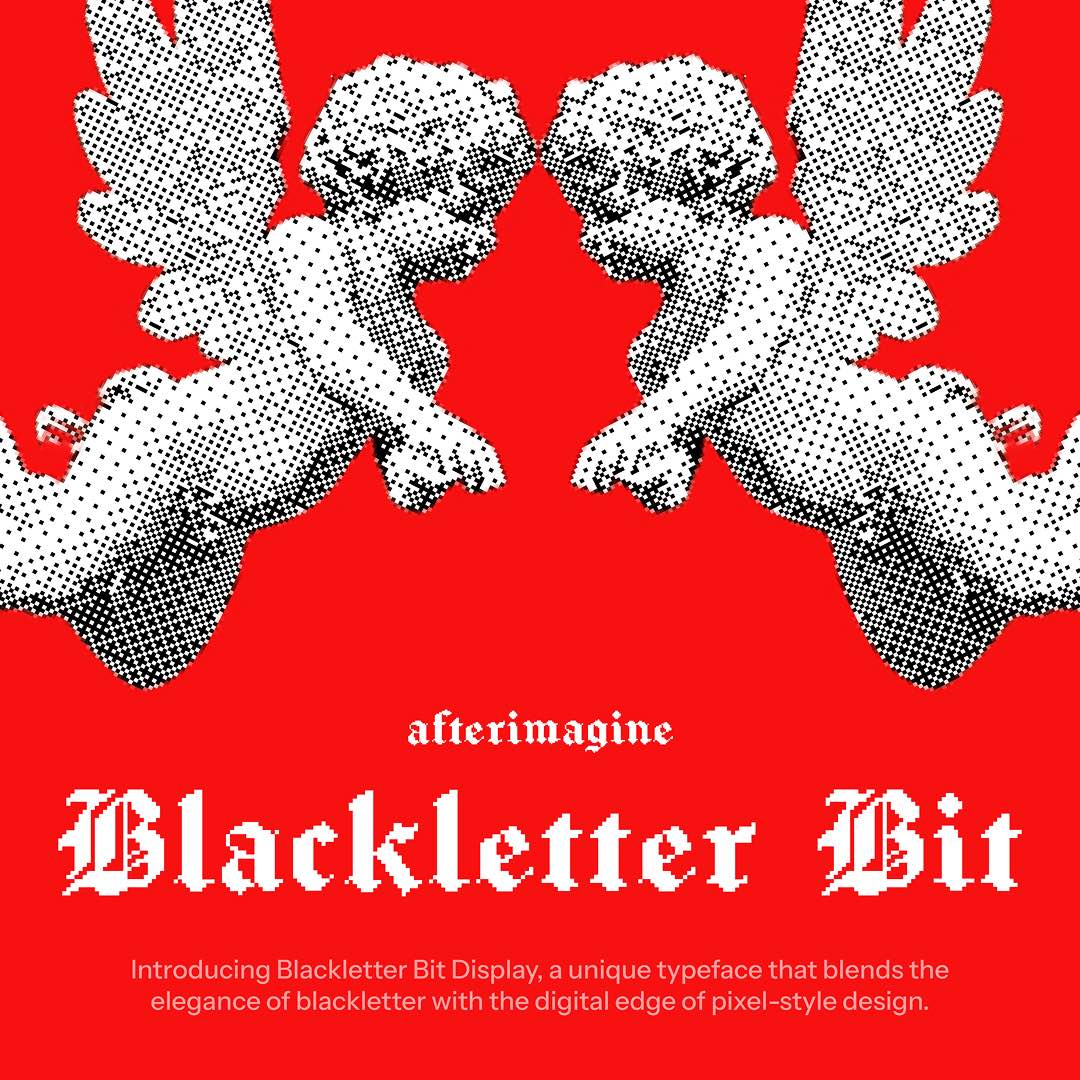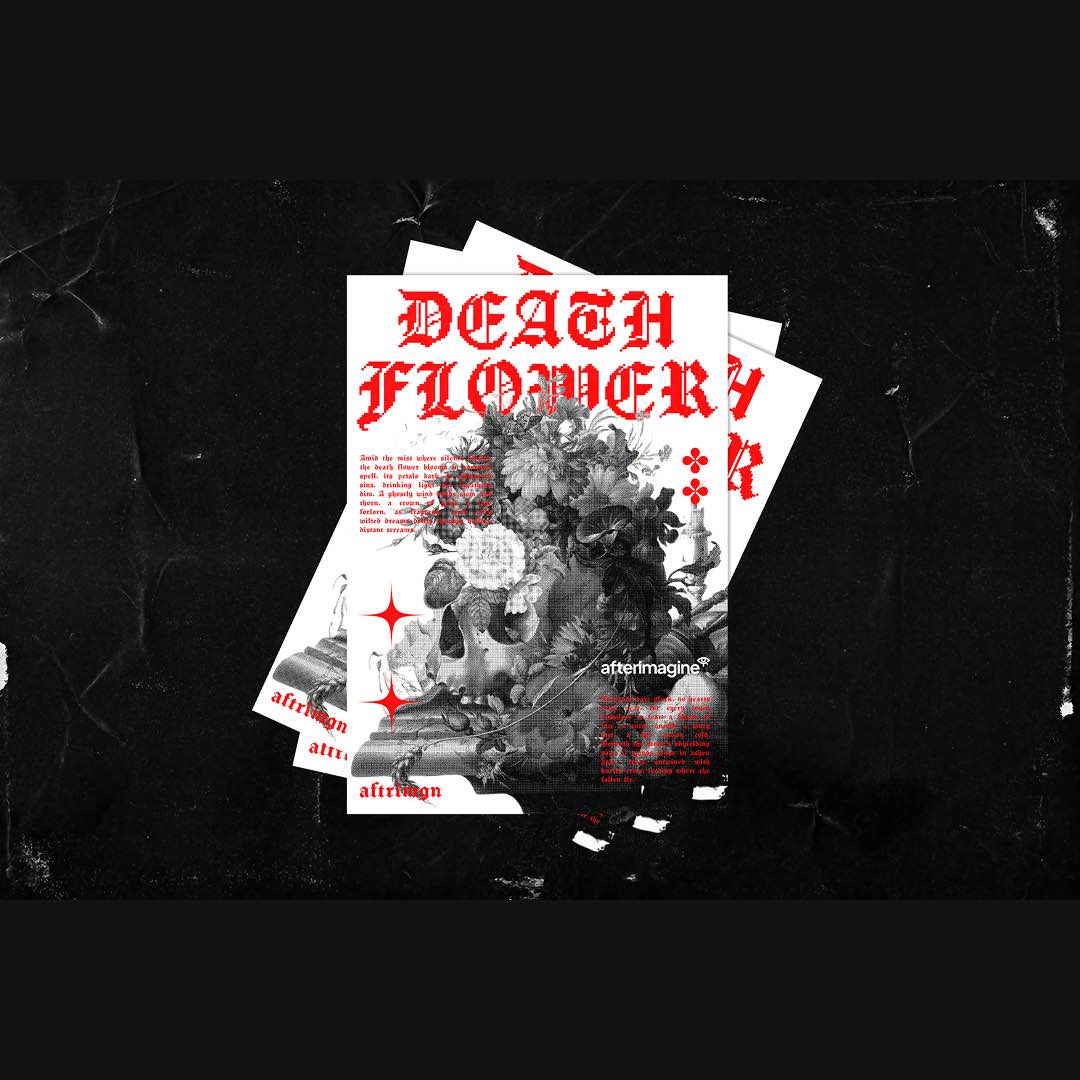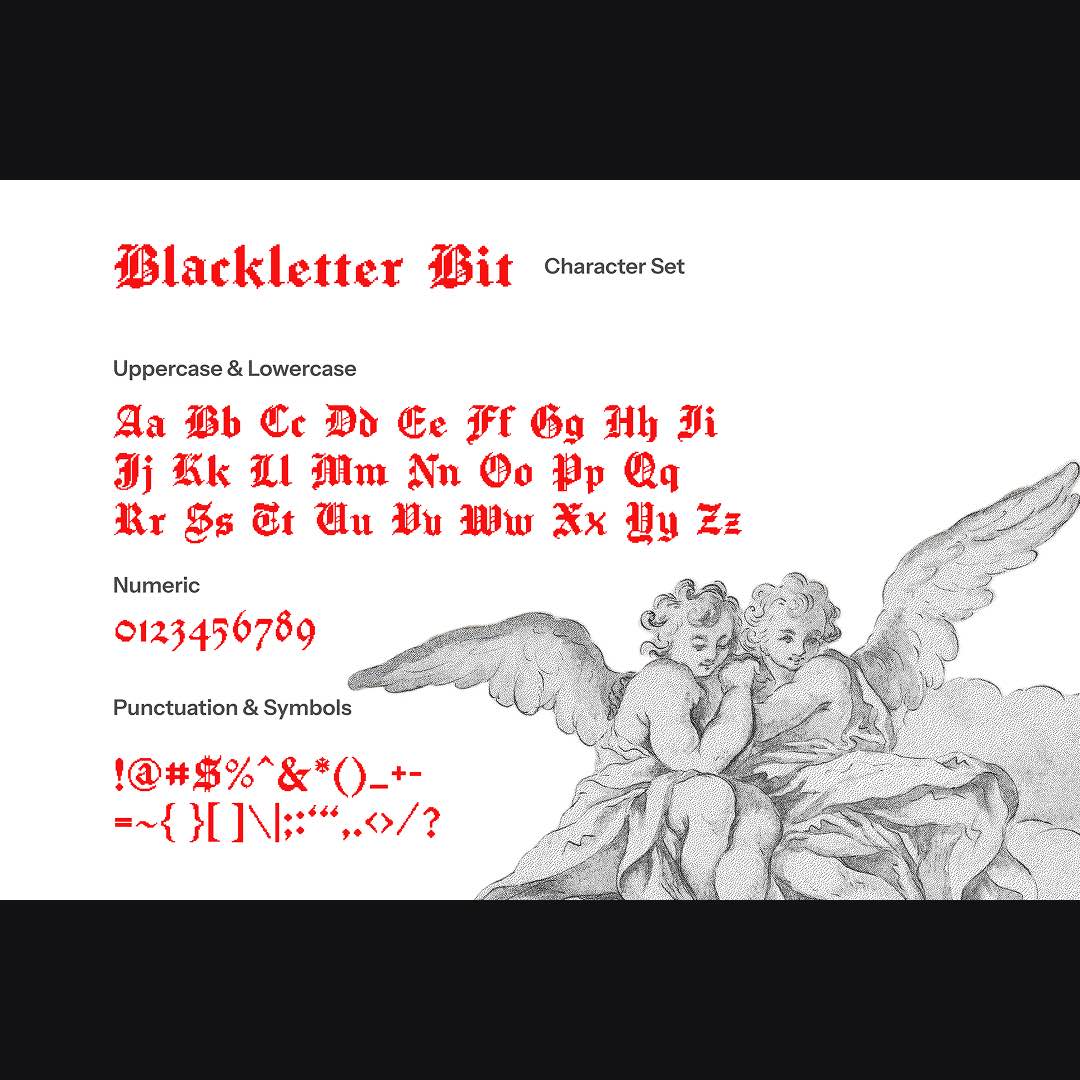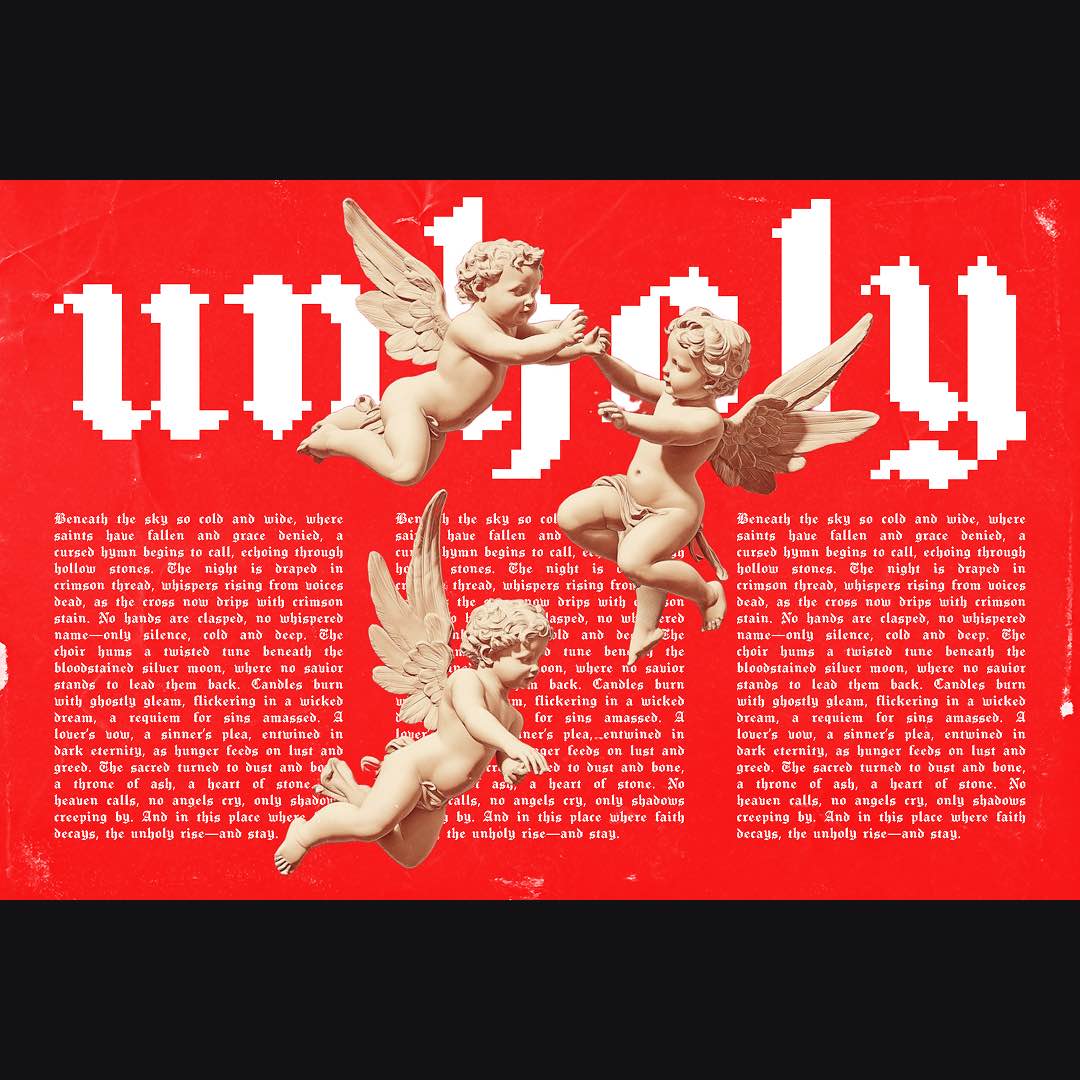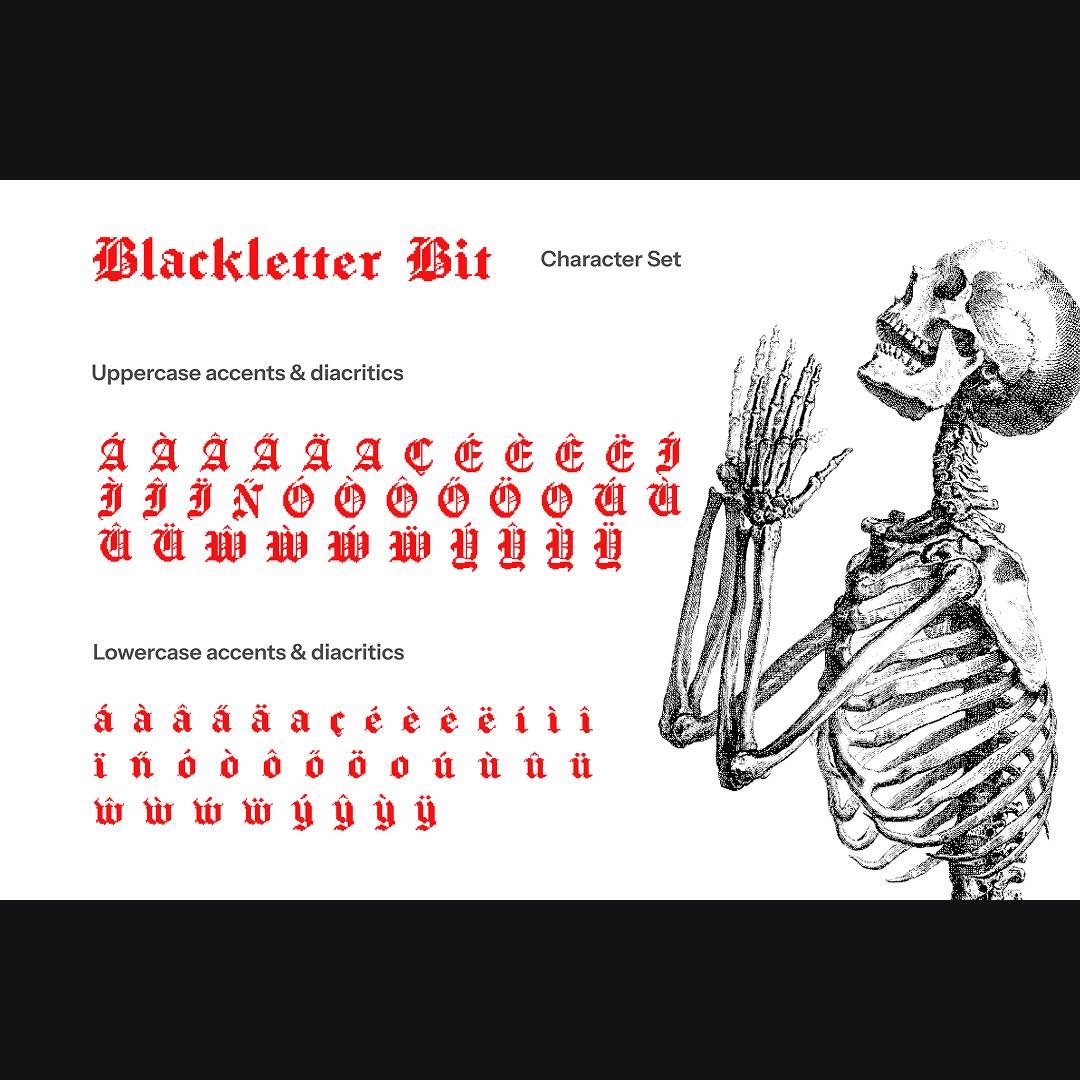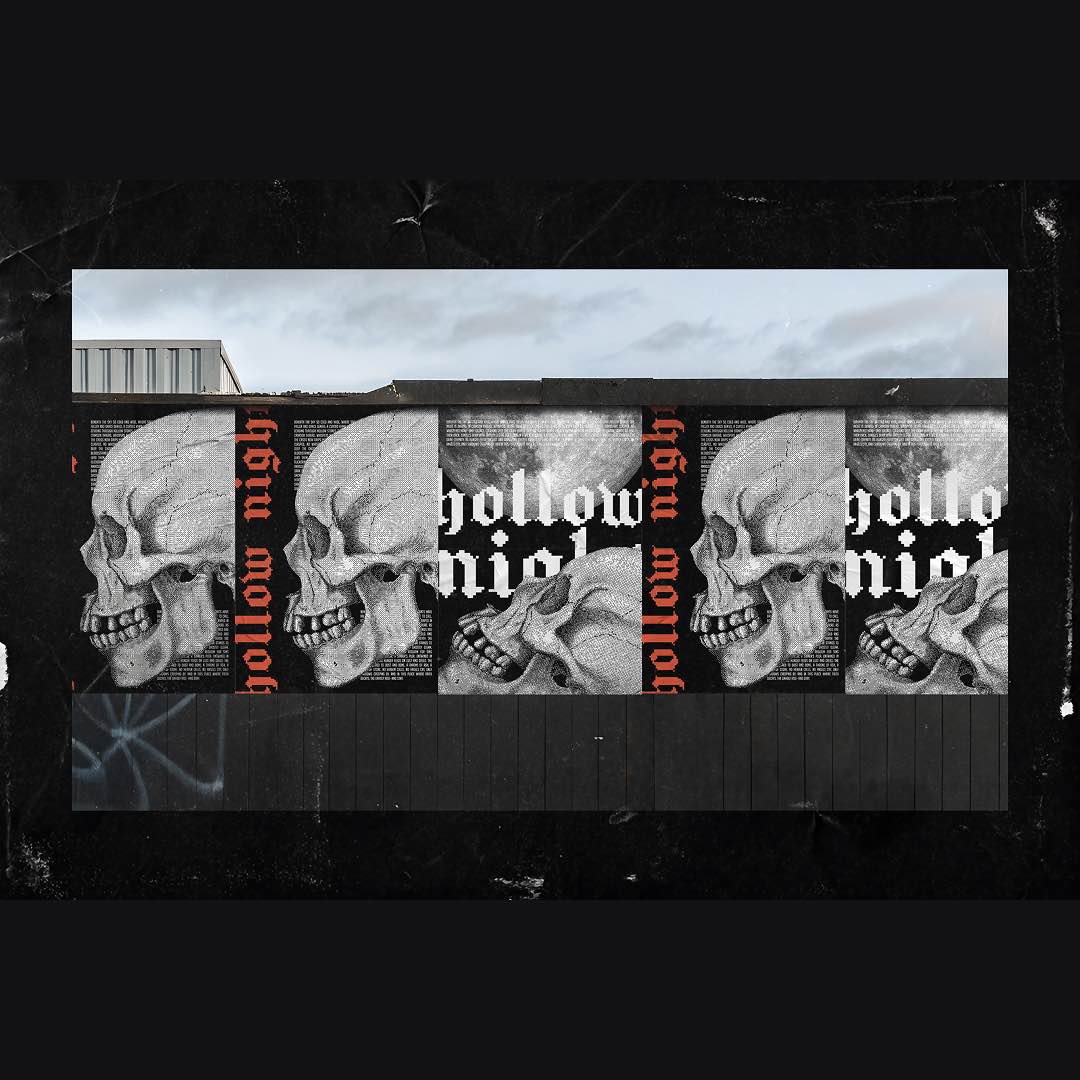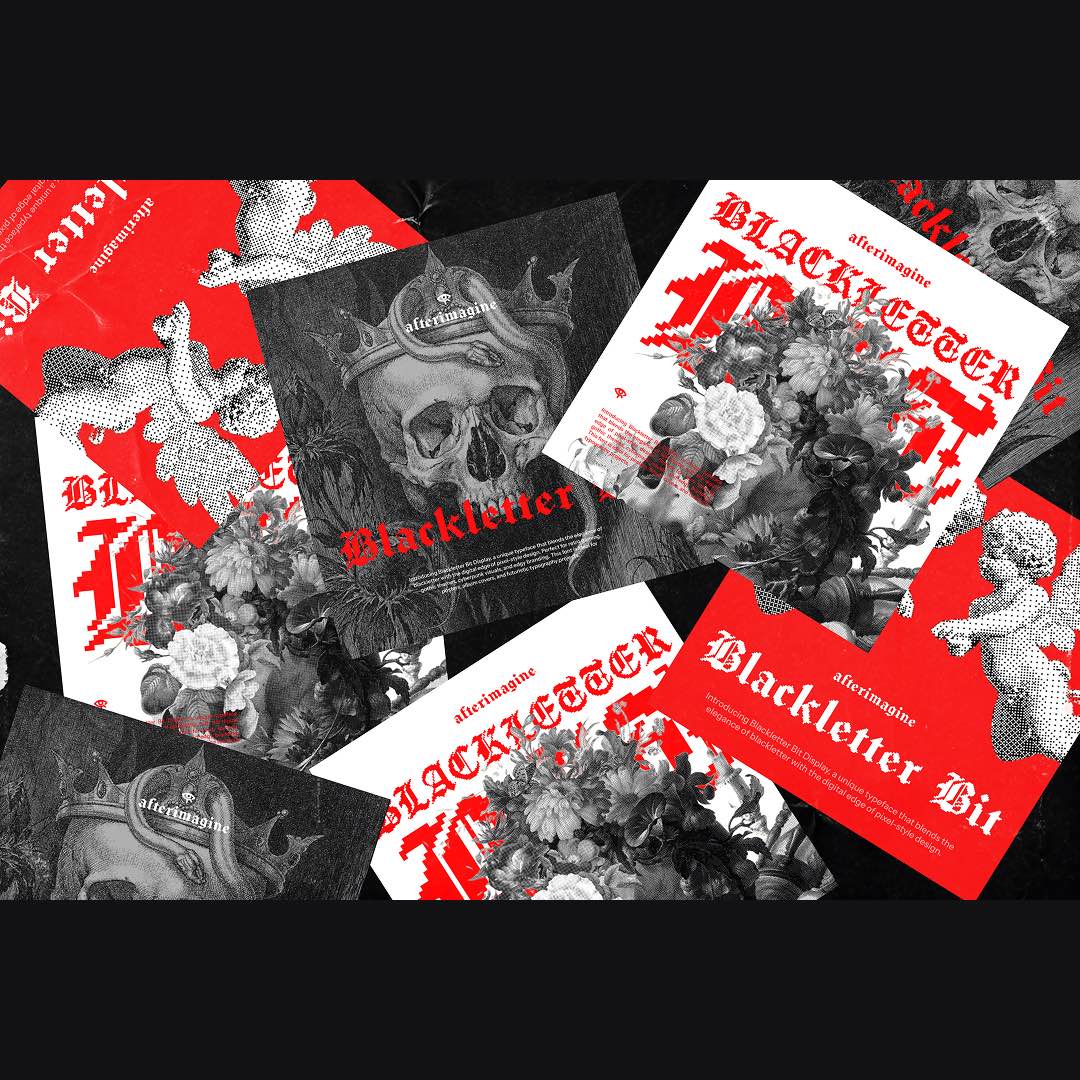
A defiant clash of medieval tradition and digital punk, Blackletter Bit Display is a sharp-edged gothic typeface reimagined through a pixel grid. Inspired by vintage illuminated manuscripts and early bitmap aesthetics, this font bleeds rebellious energy.
Use it for album covers, digital zines, subcultural branding, or anything that needs to punch tradition in the teeth while nodding to it. Every glyph is handcrafted with bold structure and pixel precision—elegant, but armed.